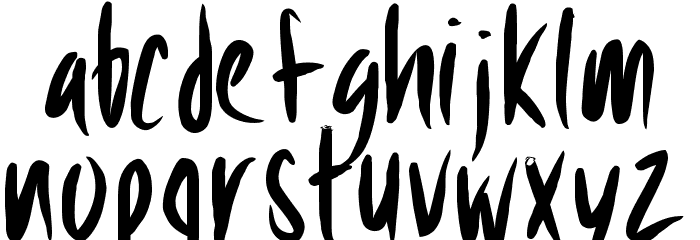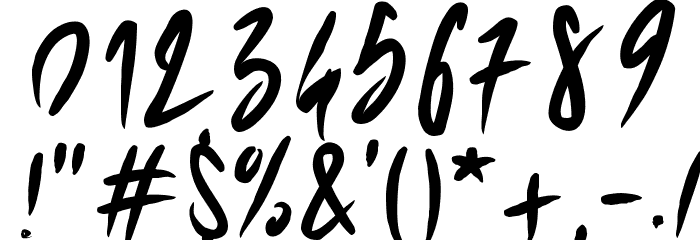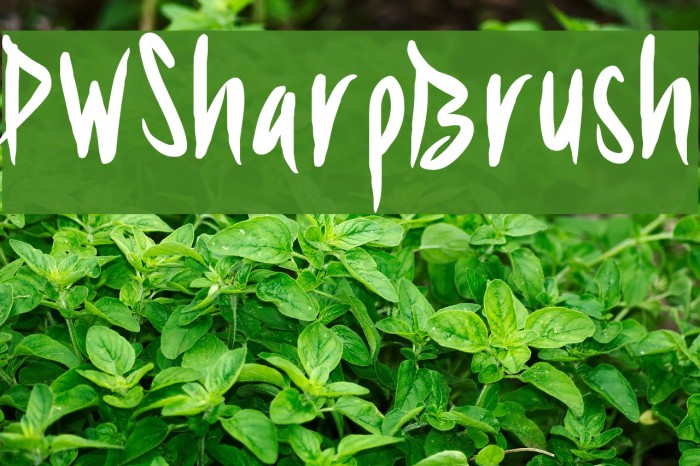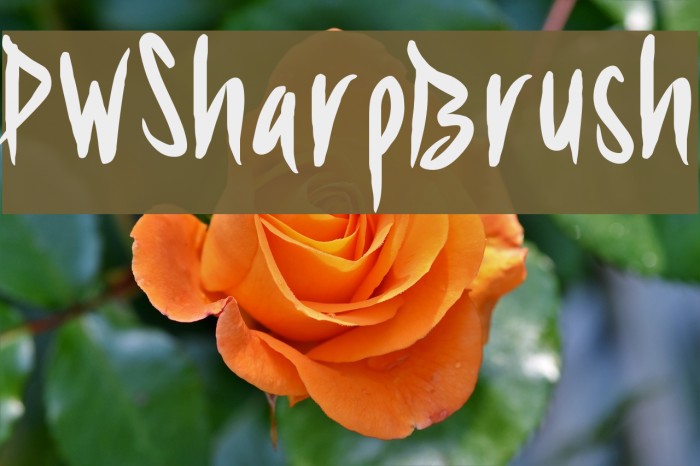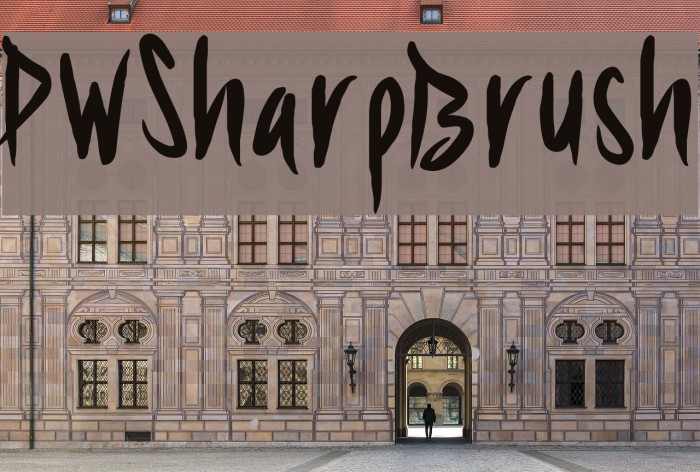
PWSharpBrush Font
This font features a bold, expressive brush style with a dynamic and energetic appearance. The strokes are irregular and varied, giving it a hand-painted look that is both artistic and spontaneous. The uppercase and lowercase letters maintain a consistent flow, while the numbers and special characters complement the overall aesthetic. The font's design is perfect for projects that require a personal touch or a creative flair, such as posters, invitations, or branding materials. Its unique style makes it stand out, capturing attention with its vibrant and lively character.
A bold, expressive brush-style font with a dynamic, hand-painted look.
- Proposed Projects: Ideal for posters, invitations, branding, and creative projects needing a personal touch.